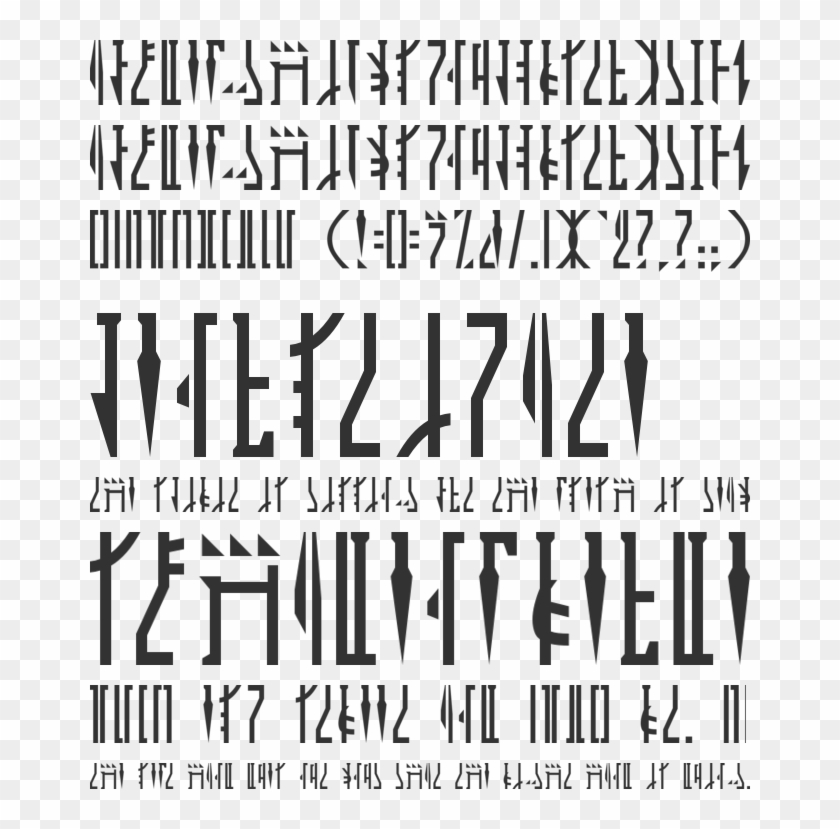
The Mandalorian Font Download
The mandalorian font download. Mandalore by iconian fonts is a free font that resembles the lettering. The main part of the logo was probably designed based on font bureaus agency black. See mandaloriantablejpg for a full table of mandalorian letters and their respective keys.
Uppercase and lowercase letters are identical. The mandalorian is an american space western web television series that premiered on disney on november 12 2019. Also kerning has been enabled for this font.
Download the free font replicating the title logo from the tv show the mandalorian and many more at the original famous fonts. The fonts collection section is the place where you can browse. This font includes all english letters numbers and common punctuation marks basically all the stuff displayed on the keyboard.
Its an american space western web television series that was first released on november 12 2019. Mandalorian font free download mandalorian font is a logo font that we have seen in the mandalorian title. Moreover you can embed it to your website with atfont face support.